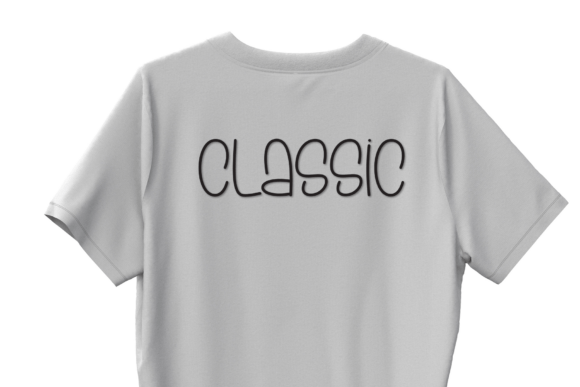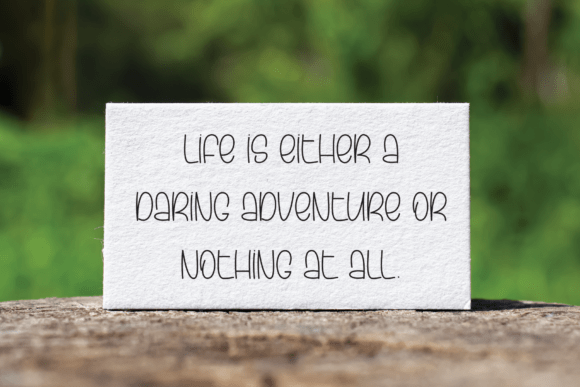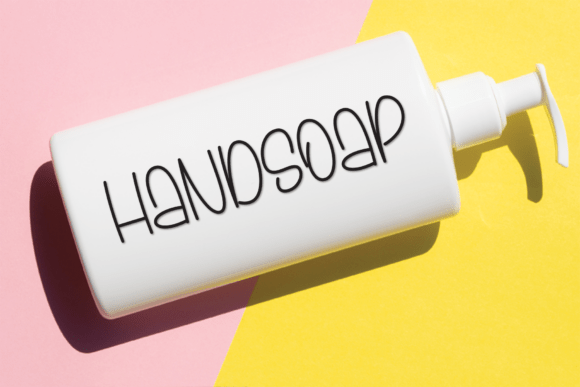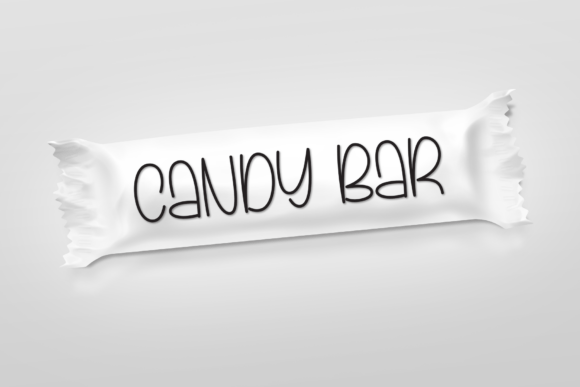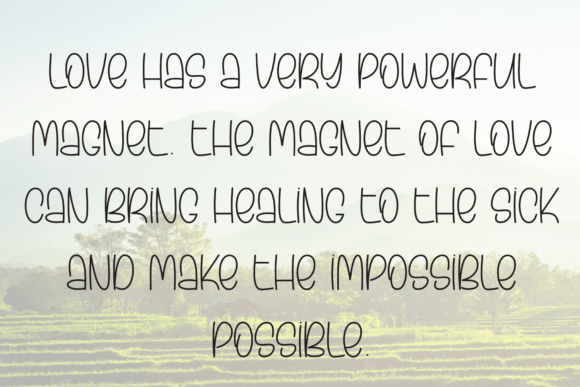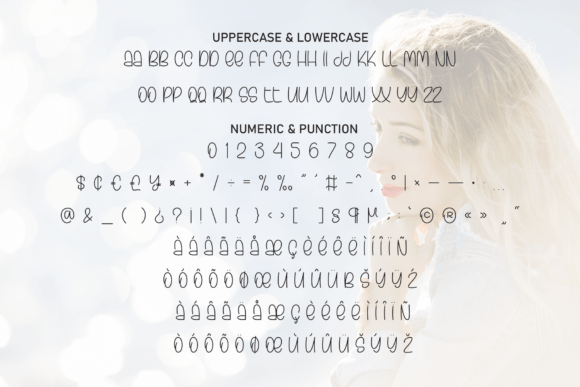
Introduction to Shining Beauty Font Font
Fonts play a crucial role in design, and the Shining Beauty Font font is a typeface that brings both character and versatility to any project. Whether you’re working on a branding project, a website, or a print design, the Shining Beauty Font font offers a unique style that can elevate your work.
Introducing a pleasingly adorable and cordial handwritten display font.
This endearing typography perfectly captures a touch of amusement and charm, making it the ideal choice for crafting wedding invitations, cards, or any design projects that require a sprinkle of whimsy and delight Whether youβre looking to add a dash of playfulness, or simply bring a smile to someoneβs face, this font beautifully transforms any design into a piece of engaging art.
Key Features of Shining Beauty Font Font
Why Choose Shining Beauty Font Font?
The Shining Beauty Font font is more than just a typeface β it’s a design tool that helps you communicate your message with style and clarity. Its unique character set and versatile design make it suitable for a wide range of applications, from elegant invitations to bold headlines.
With its carefully crafted letterforms and balanced proportions, the Shining Beauty Font font ensures readability and visual appeal across all mediums.
What makes Shining Beauty Font font special?
The Shining Beauty Font font stands out with its unique design, exceptional readability, and versatility across various design applications.